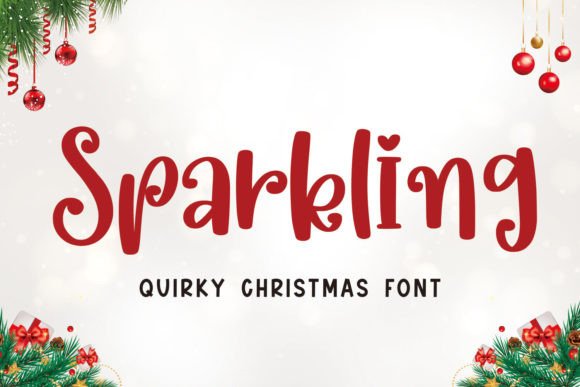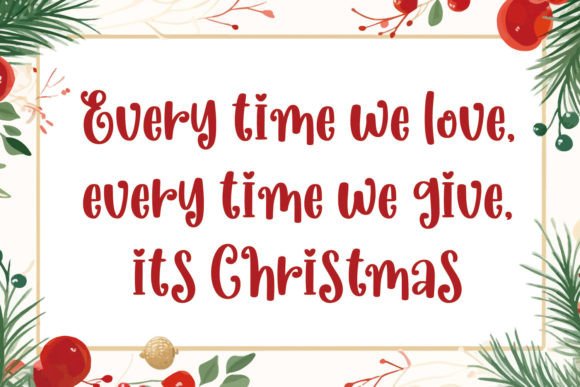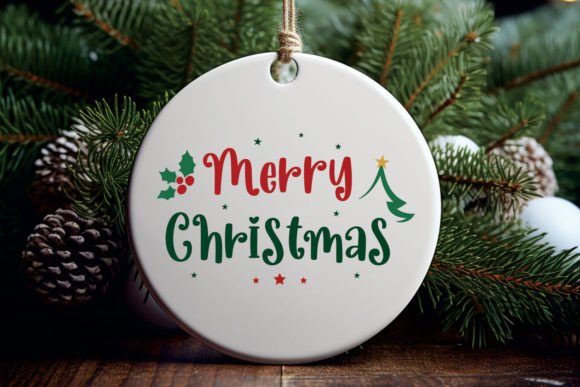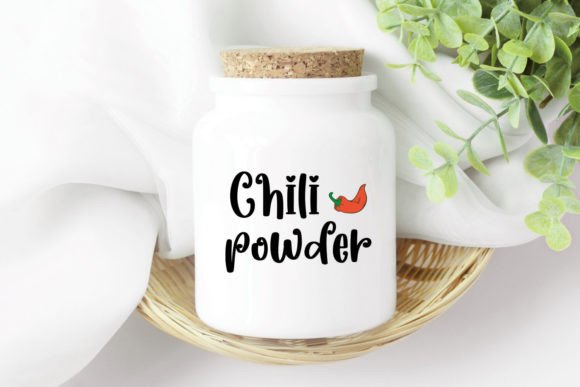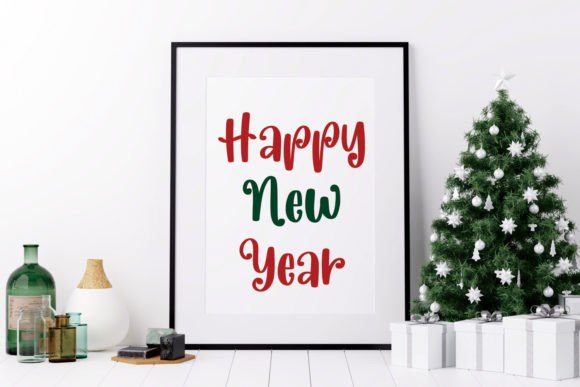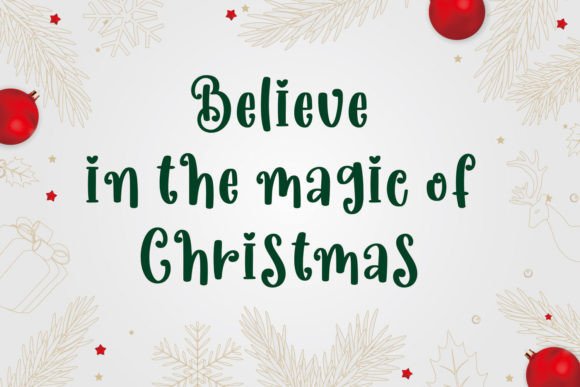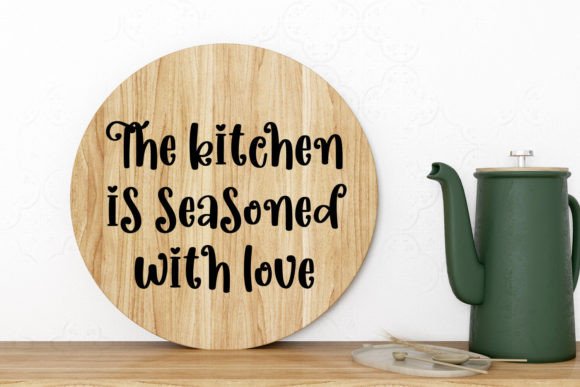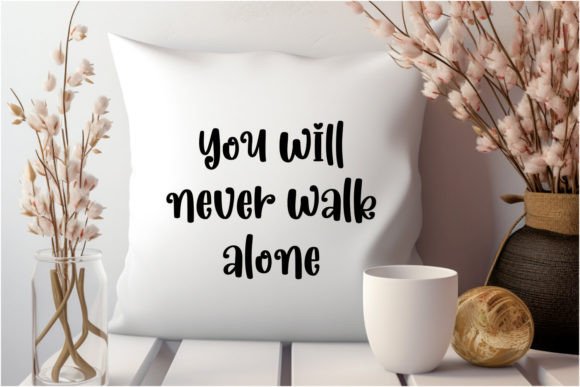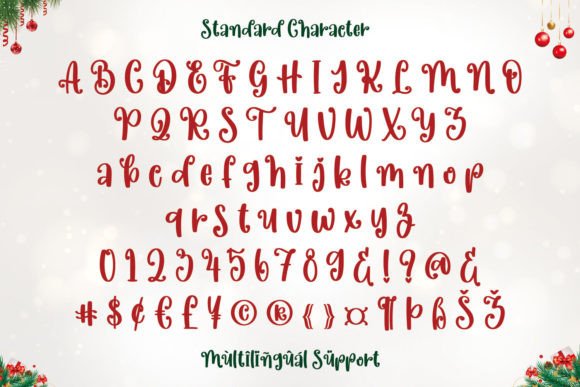
Sparkling Font
Introducing “Sparkling” Font – a dazzling script handwritten font perfect for celebrating the most magical times of the year! Whether you’re creating festive Christmas cards, cheerful New Year’s invitations, or charming winter crafts, “Sparkling” adds a touch of elegance and joy to every project. This font features beautiful beginning and ending swashes on each character, giving your designs a graceful and flowing appearance that’s perfect for holiday cheer.
Embrace the warmth of Easter, the gratitude of Thanksgiving, and the spirit of Christmas with “Sparkling” Font. It’s ideal for Cricut projects, embroidery designs, and all your crafting needs. Imagine your Thanksgiving place cards adorned with these lovely letters or your Easter banners beautifully scripted with a font that captures the essence of celebration and family gatherings.